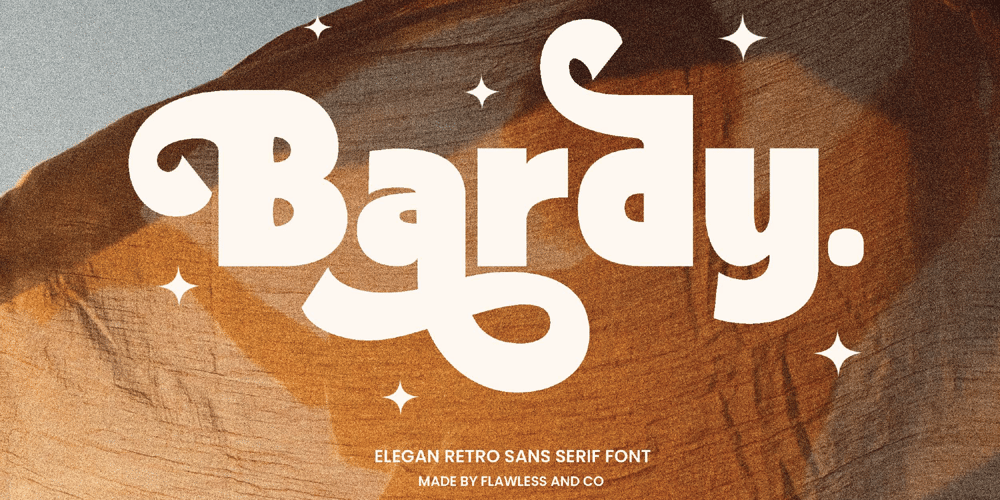
Bardy Font Family was designed by Achmad Yani and published by Flawlessandco. Bardy contains 1 styles and family package options. Introducing “Bardy” — a masterpiece in the realm of elegant retro sans-serif fonts. Immerse yourself in the timeless charm of this typeface, where classic design meets contemporary sophistication. Bardy is not just a font; it’s a journey back in time with a modern twist, carefully crafted to enhance your design projects.There’s some connected letters and some alternates that suitable for any graphic designs such as branding materials, t-shirt, print, business cards, logo, poster, t-shirt, photography, quotes .etcThis font support for some multilingual. Also contains uppercase A-Z and lowercase a-z, alternate character, numbers 0-9, and some punctuation.If you need help, just write me! Thanks so much for checking out my shop!